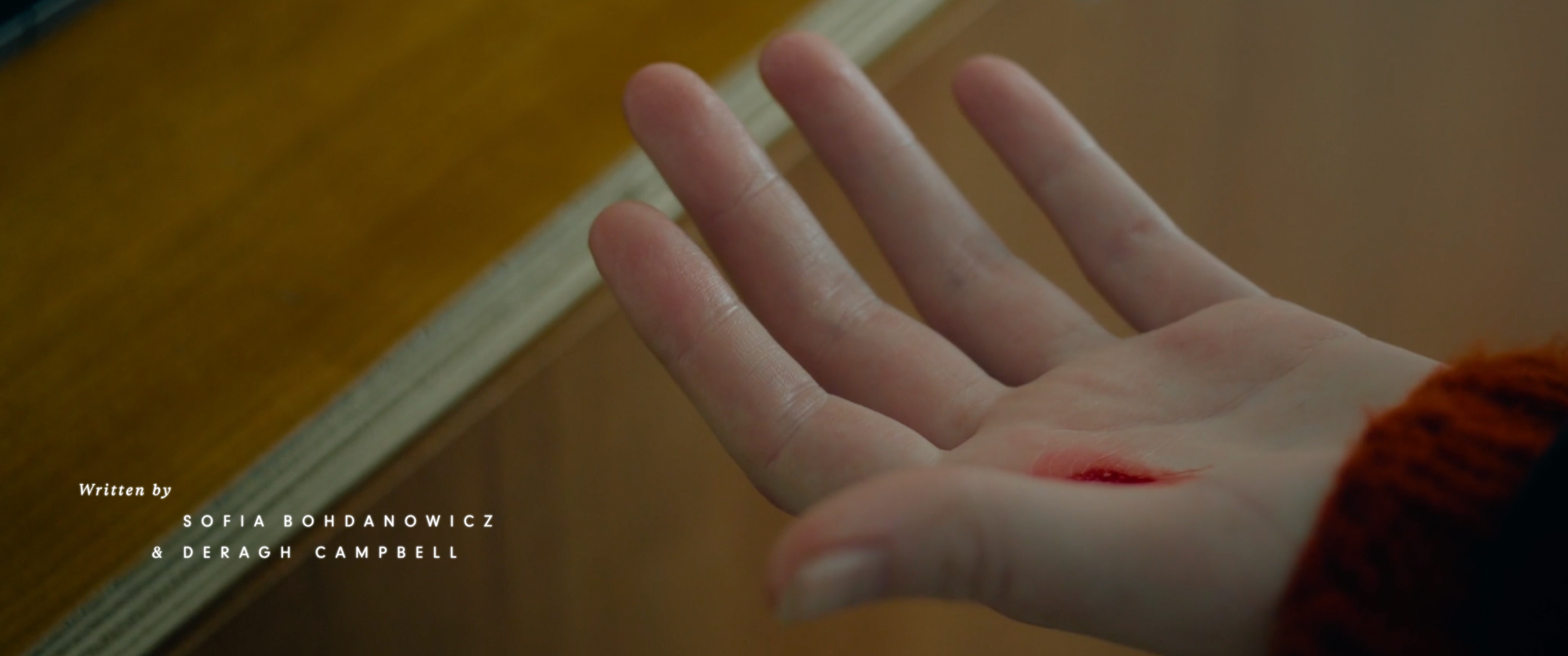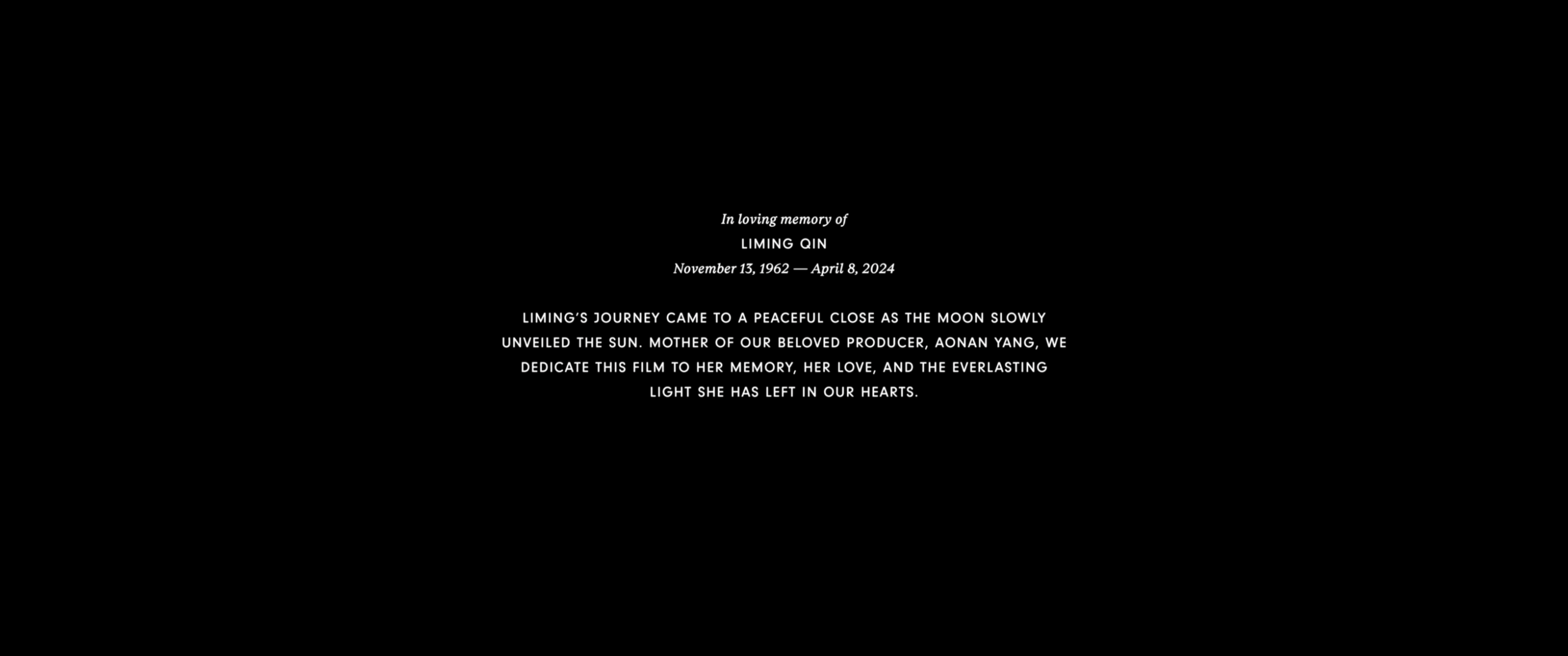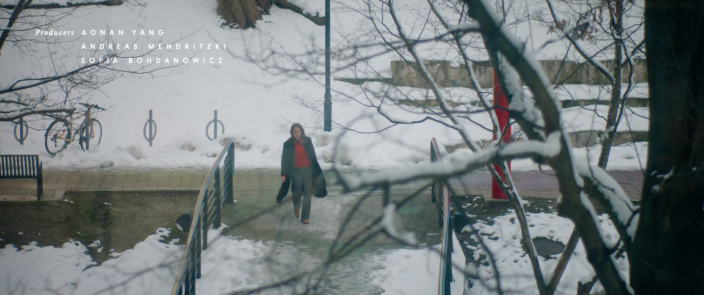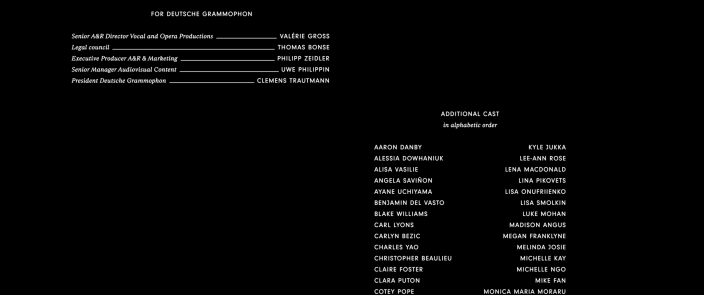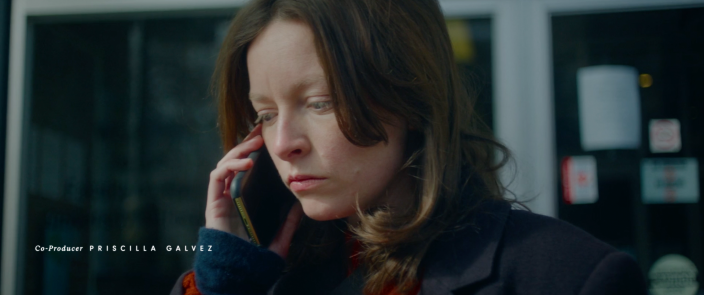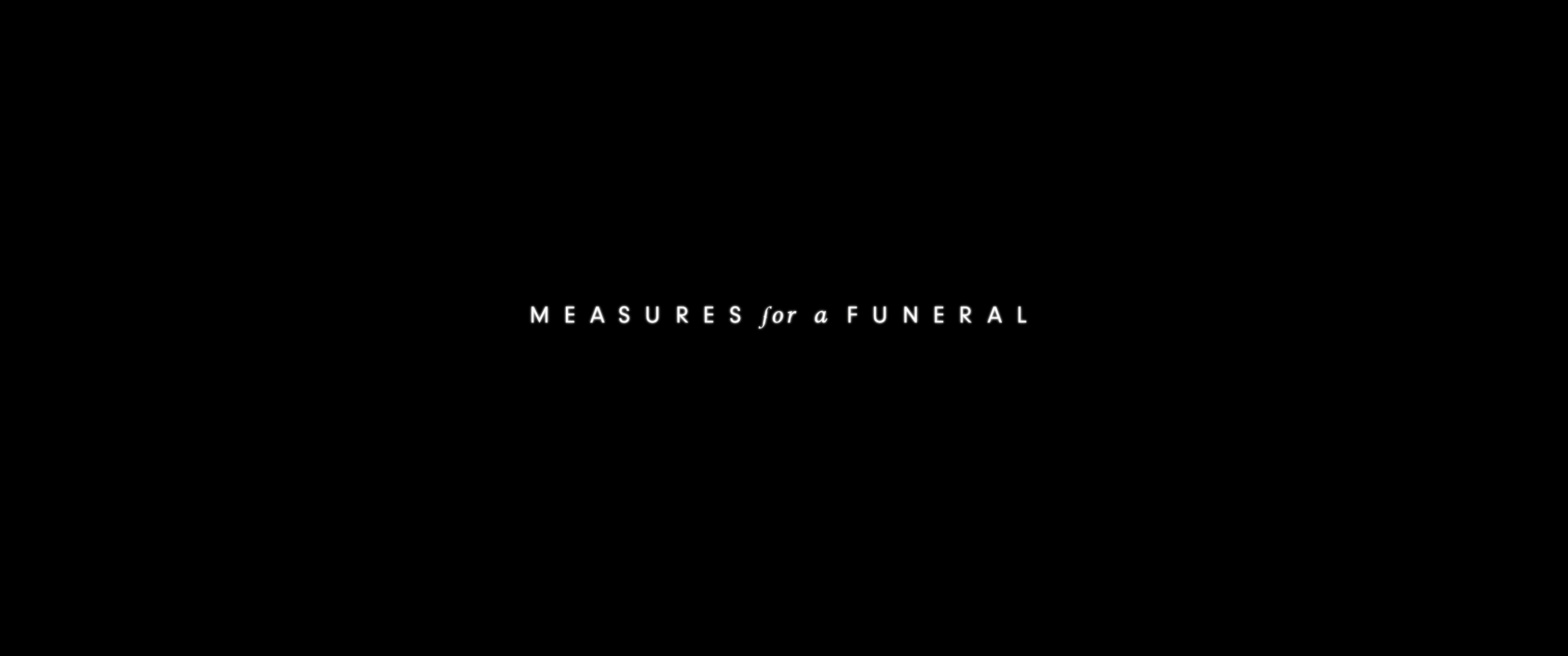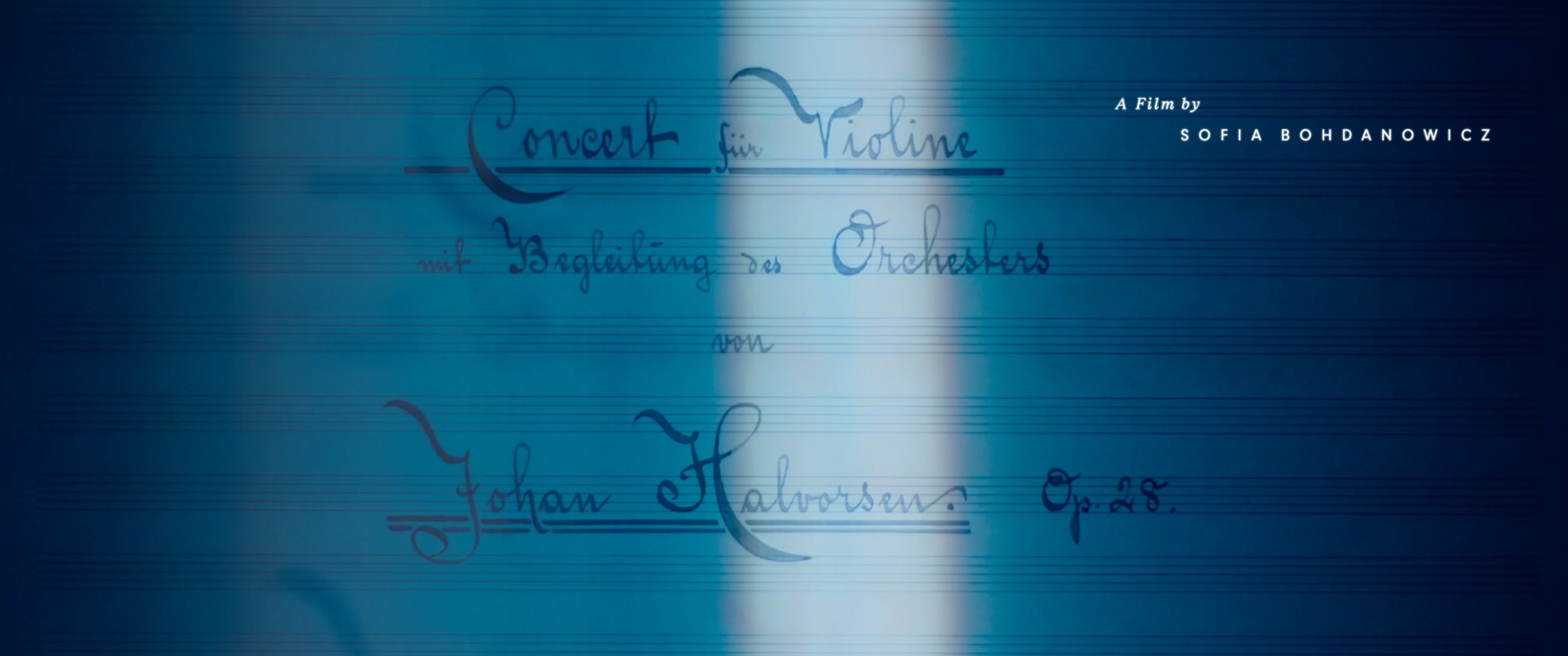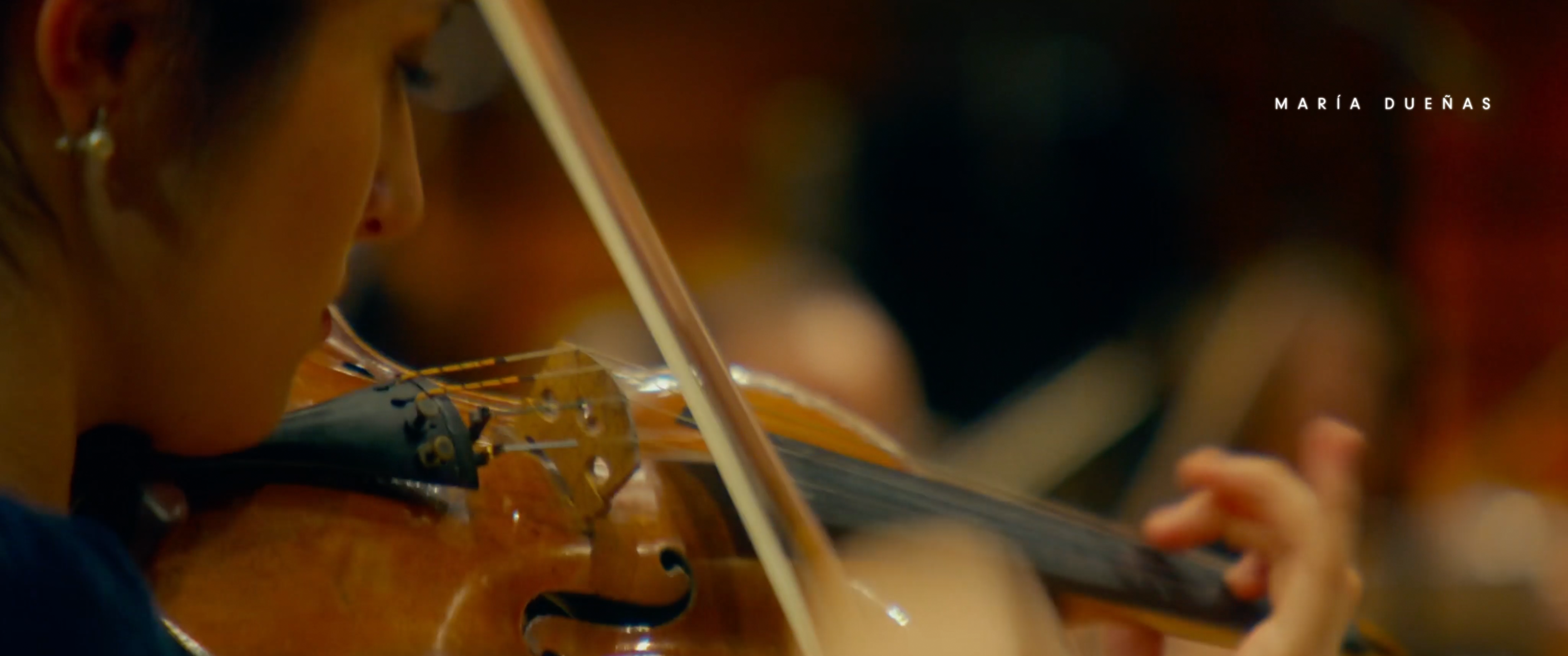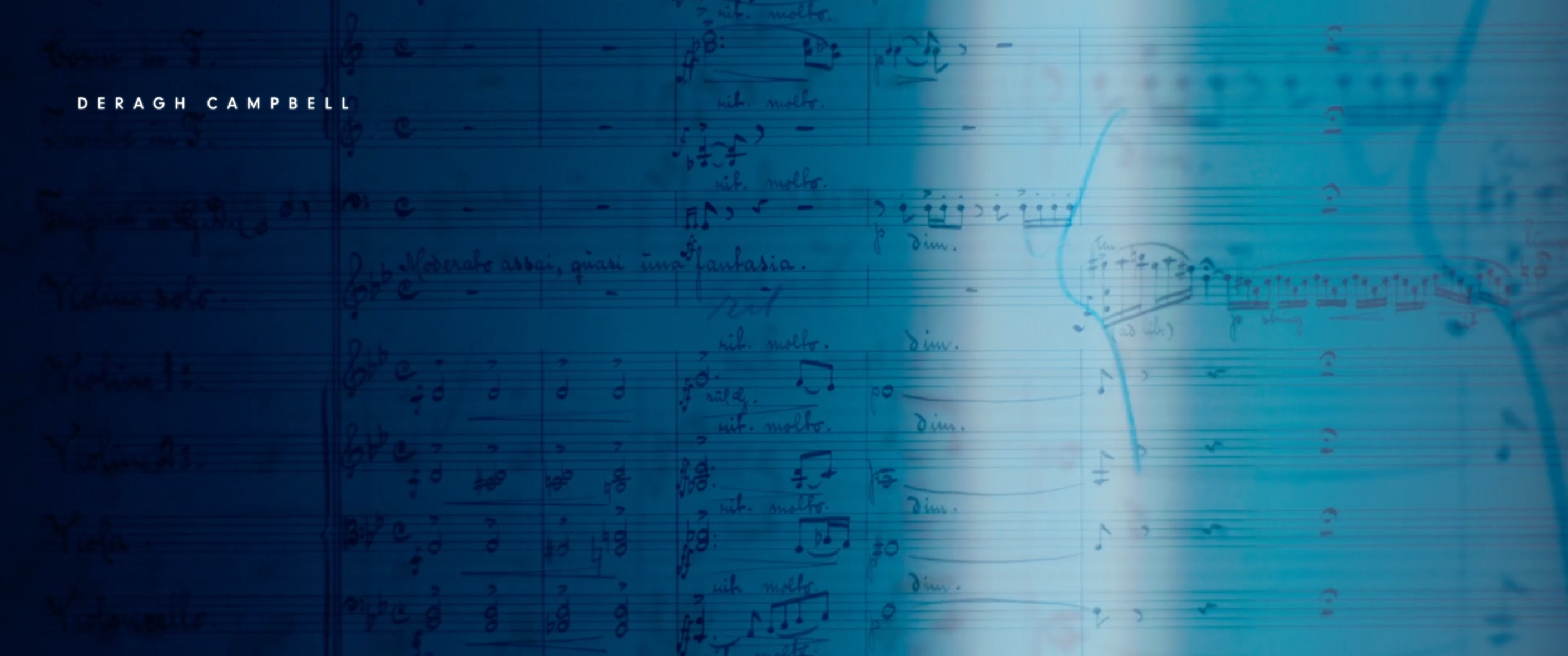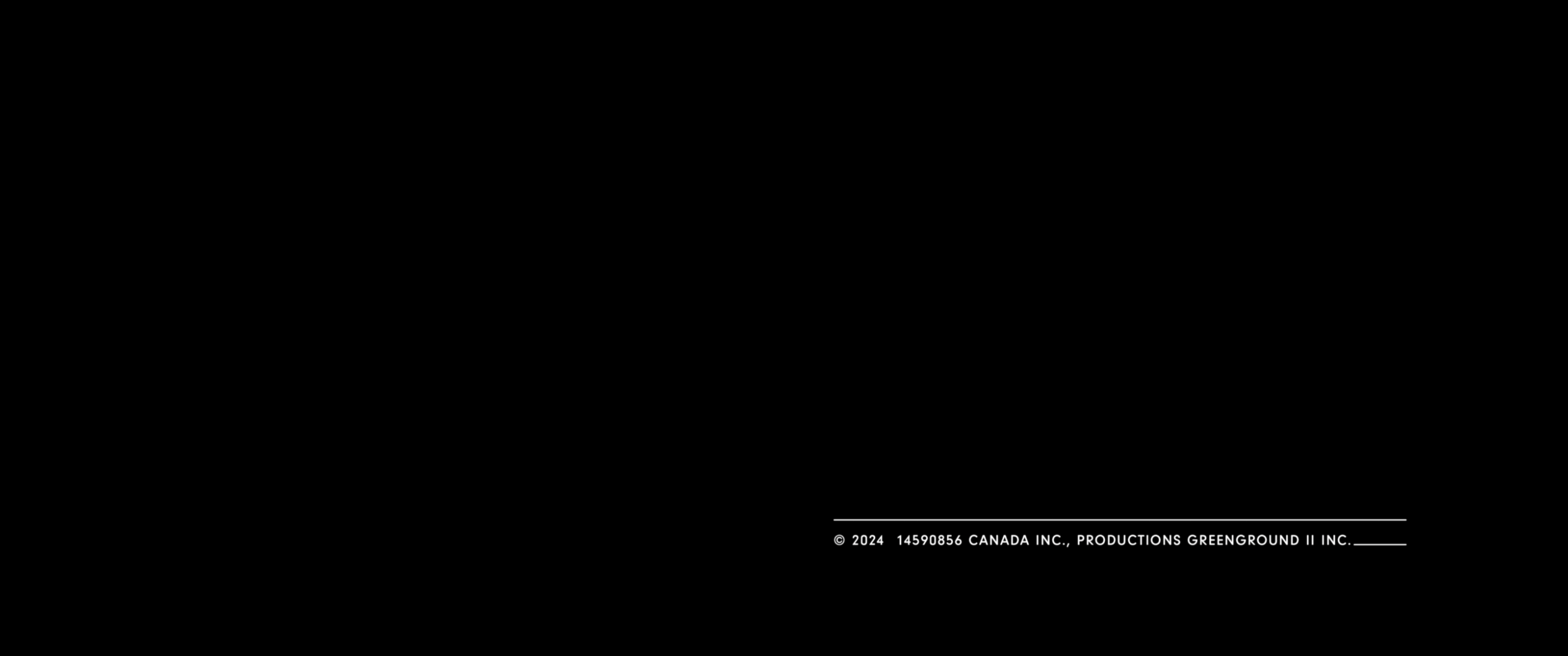
Measures for a Funeral
Measures for a Funeral brilliantly spotlights a young academic’s run towards one woman — acclaimed early 20th-century Canadian violinist Kathleen Parlow — as she simultaneously flees from another, her failed musician mother.
The title design underscors the musicality and movement of the film. The subtle animation of the main title reinforces this. The end credits are reminiscent of sheet music and in this way also underline the theme of the film.
Schrift: Rhetorik Serif von AllCaps & Neuzeit Grotesk von Wilhelm Pischner